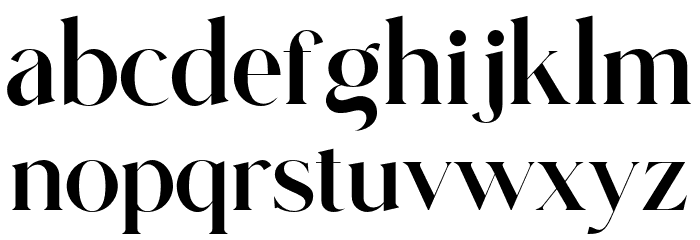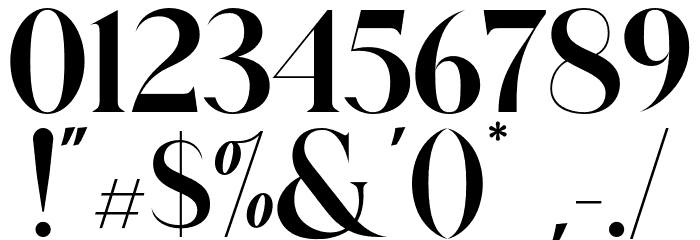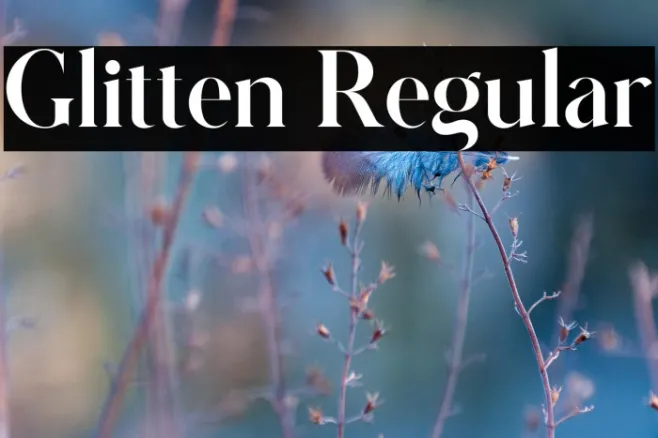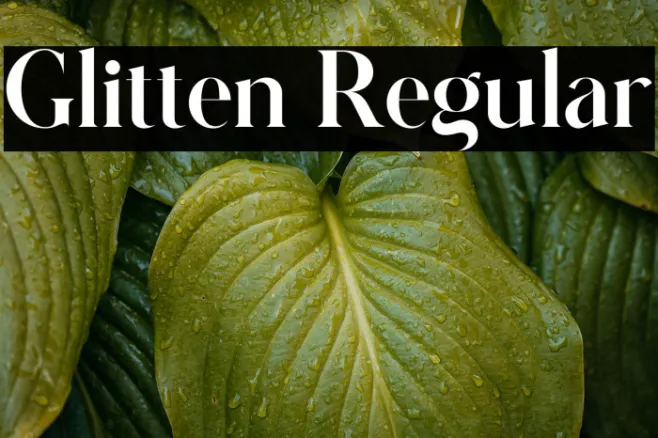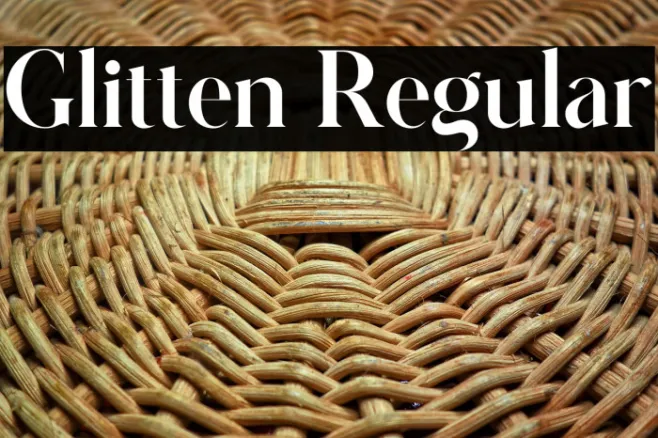
Glitten Regular Font
This font features a sophisticated and elegant serif style, characterized by its high contrast between thick and thin strokes. The uppercase letters exhibit a classic and timeless appeal, with sharp serifs and a refined structure. The lowercase letters maintain a harmonious balance, offering a smooth and flowing appearance. The numerals are distinct and bold, ensuring clear readability. Special characters are crafted with attention to detail, enhancing the font's versatility. Overall, this font exudes a sense of luxury and tradition, making it suitable for high-end branding and editorial design.
A sophisticated serif font with high contrast and elegant details.
- Font: Glitten Regular
- Proposed Projects: Ideal for luxury branding, editorial design, wedding invitations, and high-end product packaging.
- Category: Serif
- Overall Style: Classic
- Use Case: Headlines, Logos, Editorial Design